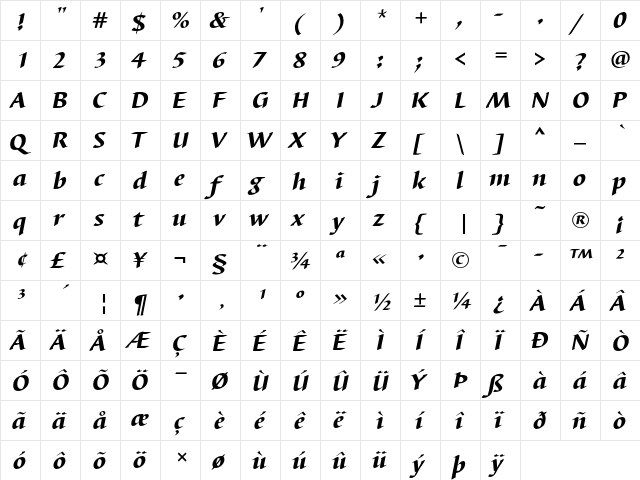
Barbedor T Heavy Italic
Design Context for Barbedor T Typeface
Barbedor T takes a measured approach to typography — its balanced proportions and neutral character make it a reliable workhorse for both digital and print work. The dynamic lean of this cut emphasises speed and emphasis in any layout.
Pro Tip: Use Barbedor T for emphasis, pull quotes, and subheadings where its slanted energy can add rhythm to the layout.